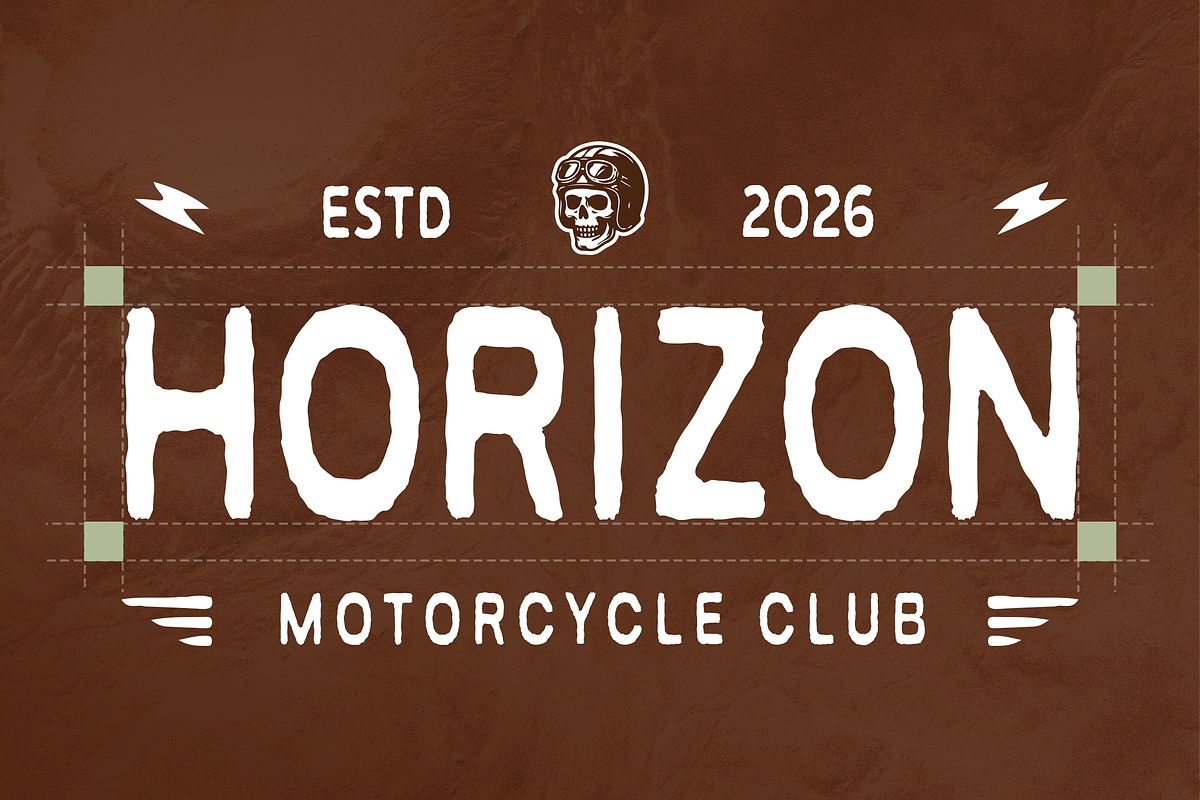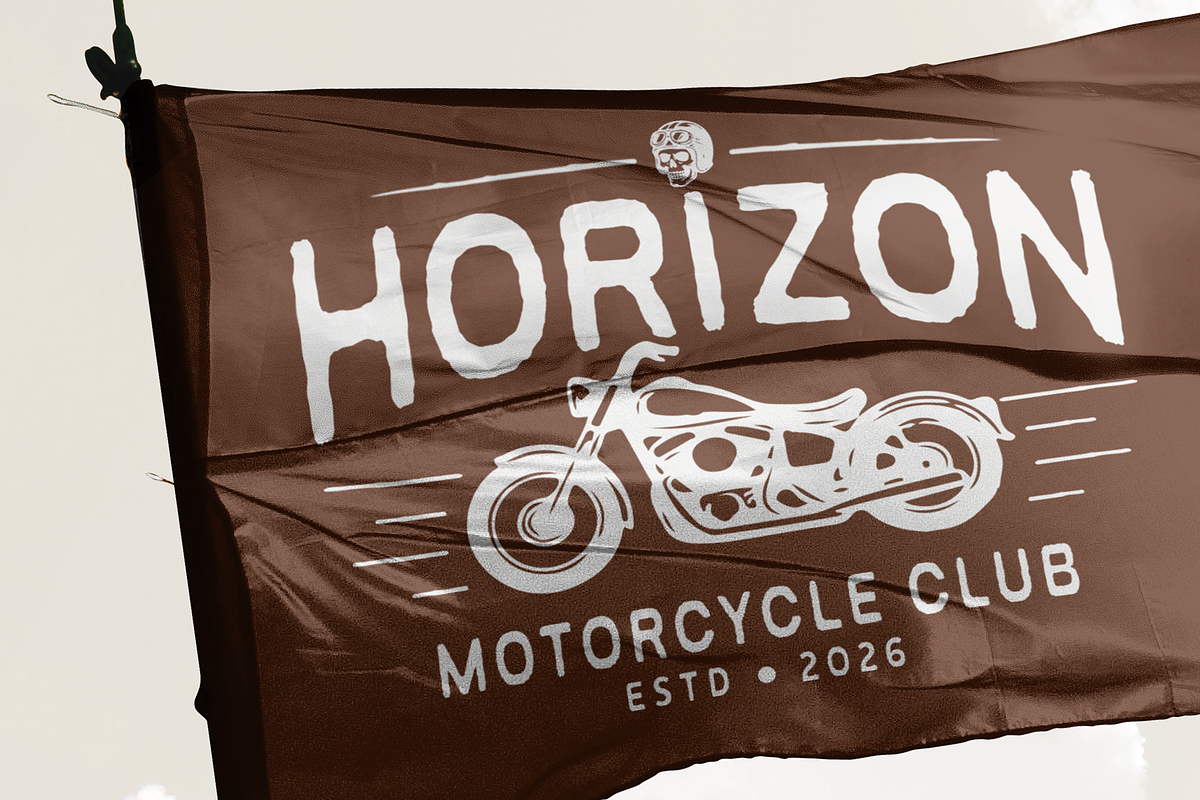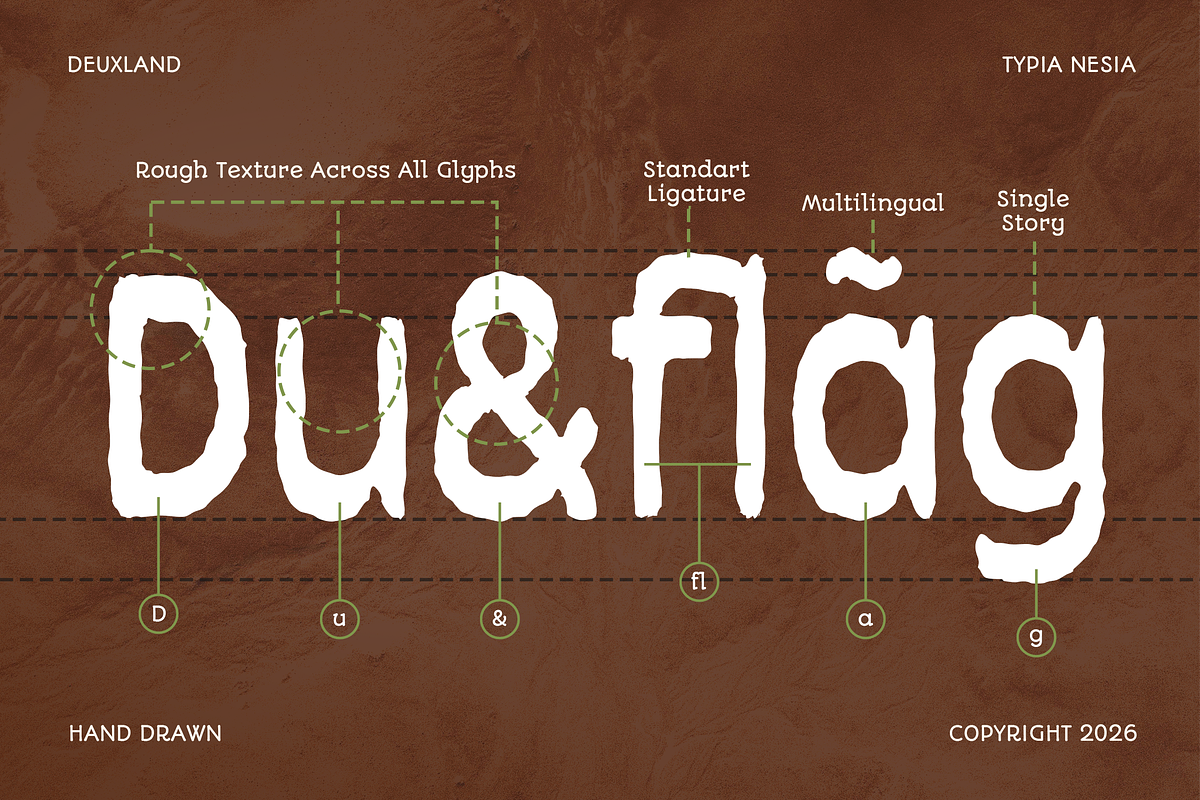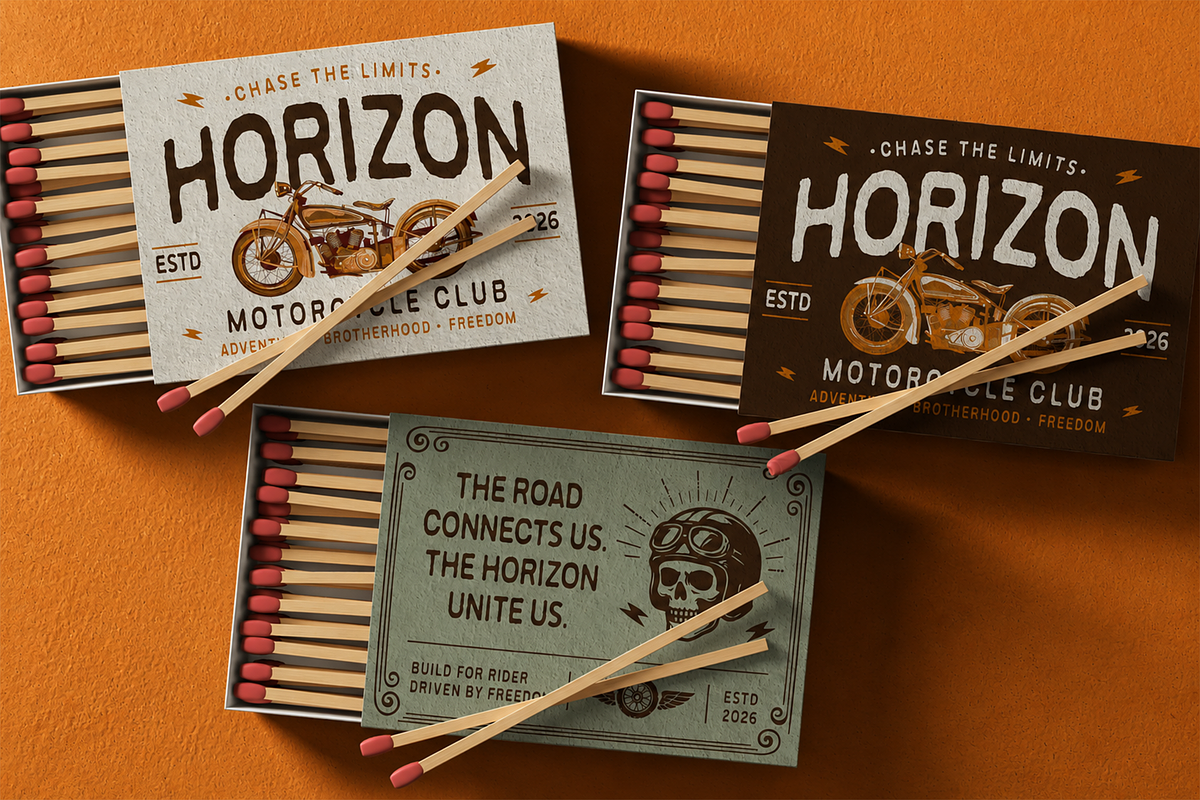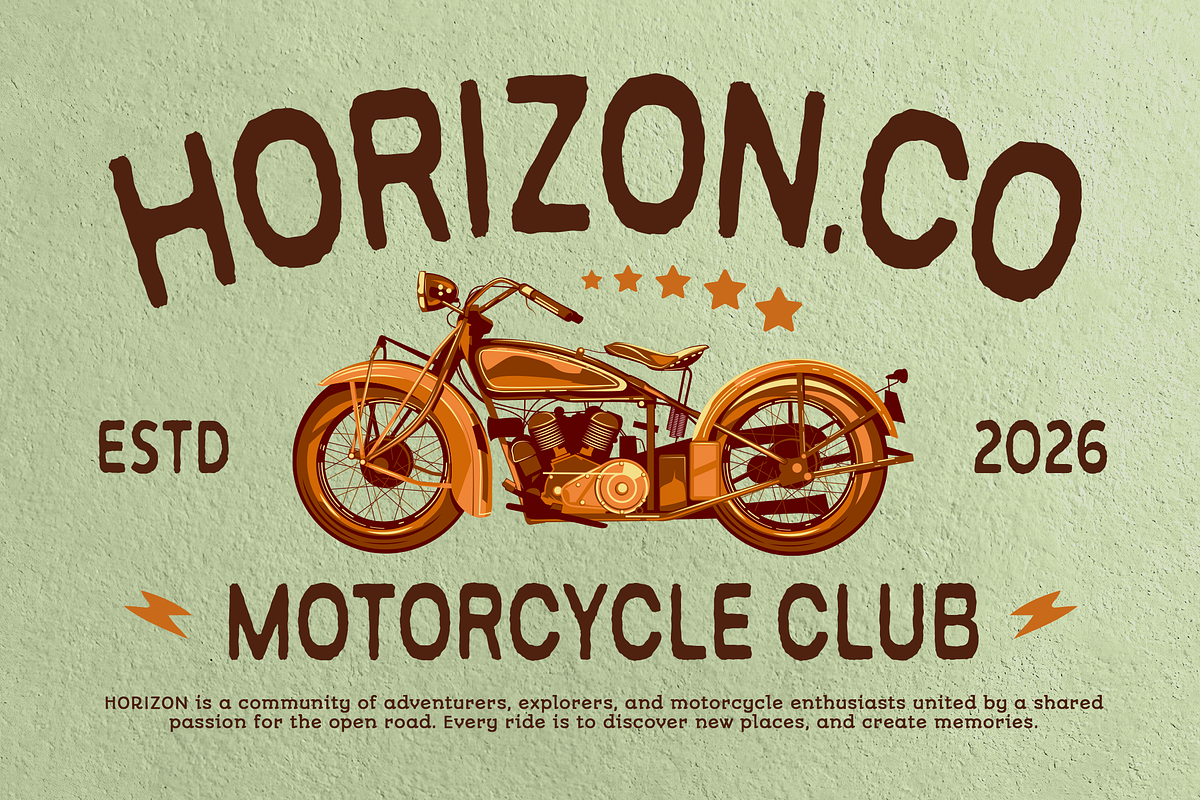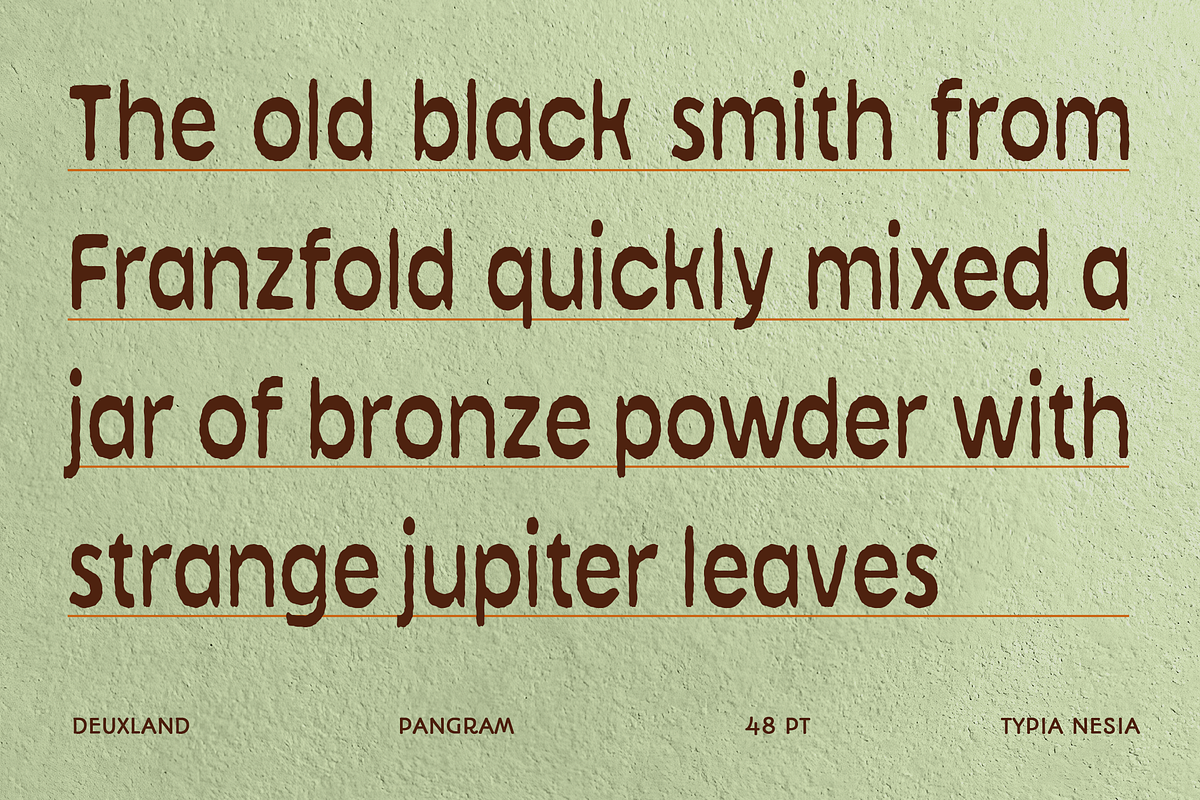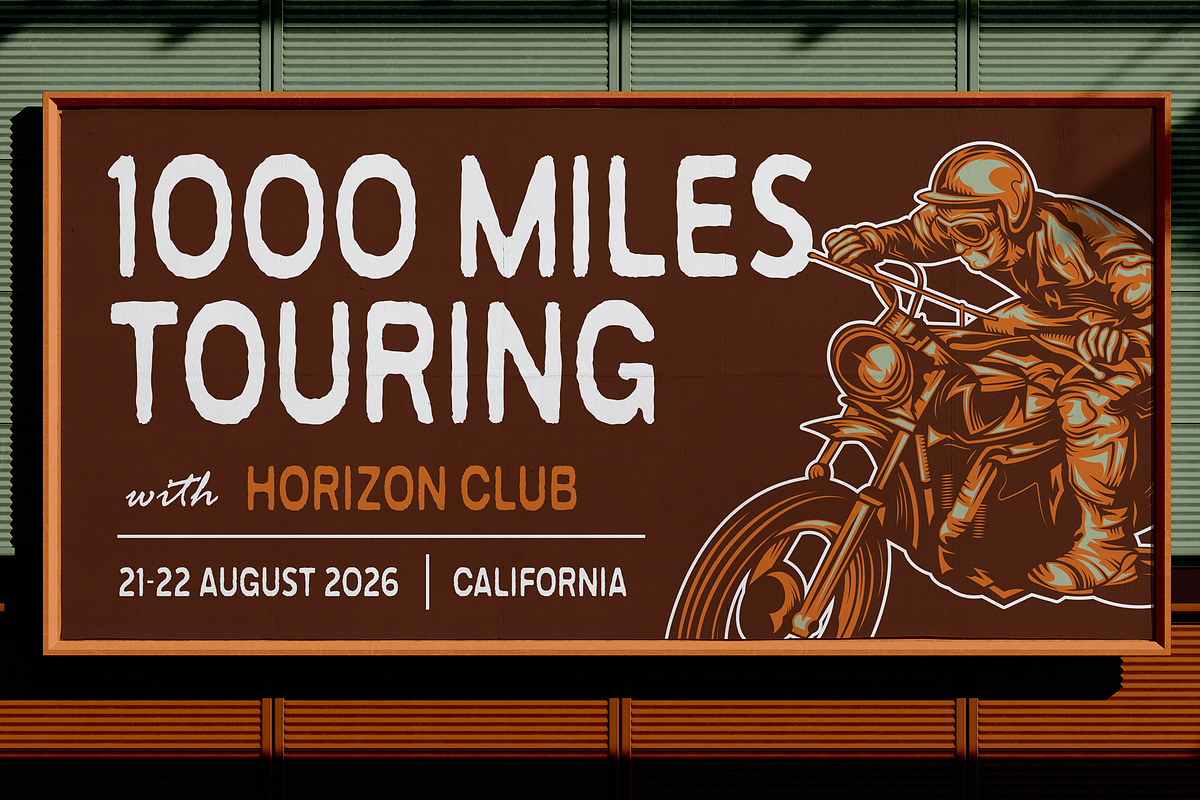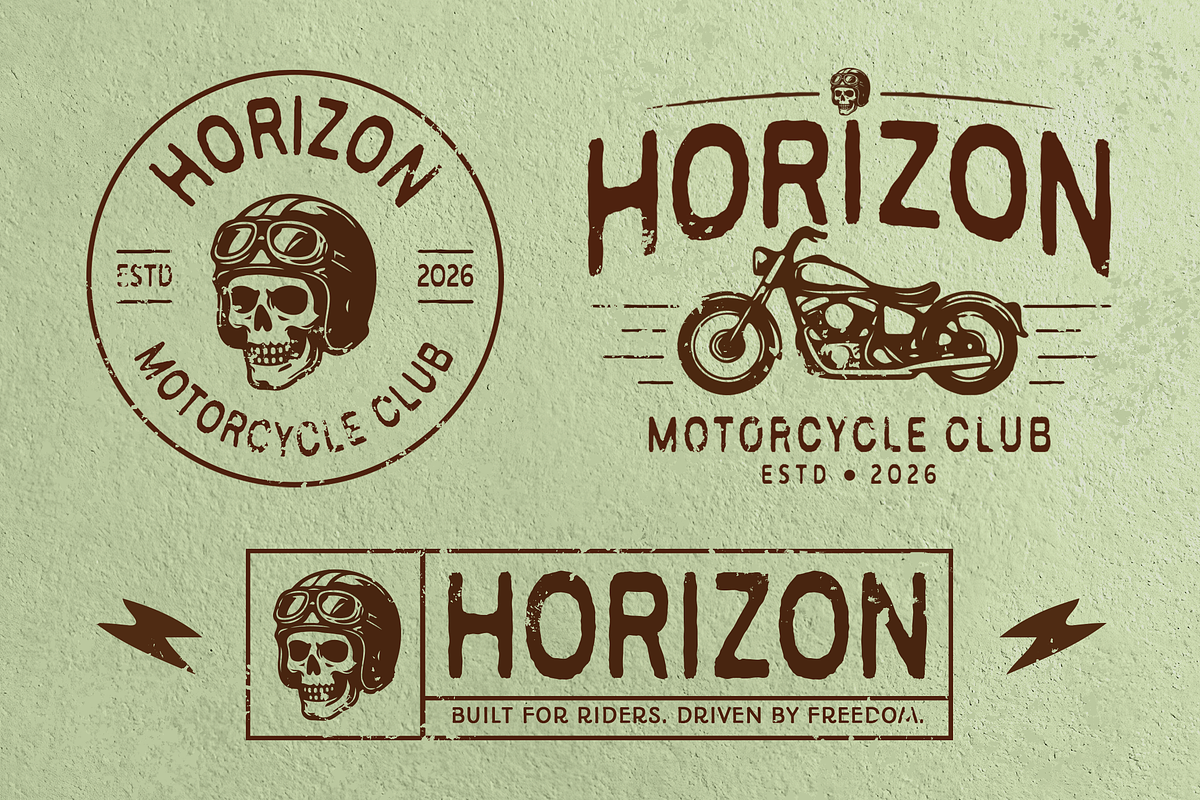
Deuxland - Vintage Handdrawn Font
Deuxland - Vintage Handdrawn Rustic Display Font
Deuxland is an organic handcrafted display font featuring naturally imperfect letterforms, soft irregular edges, and an authentic handmade aesthetic. Designed to bring warmth and personality to every project, it delivers a rustic visual impact that feels genuine and approachable across modern branding and creative design.
Perfect for logos, organic product packaging, coffee shops, cafés, restaurants, artisan brands, farmers markets, lifestyle branding, posters, editorial headlines, merchandise, and social media graphics. Bring authentic handcrafted charm and natural character to your next creative project with Deuxland.